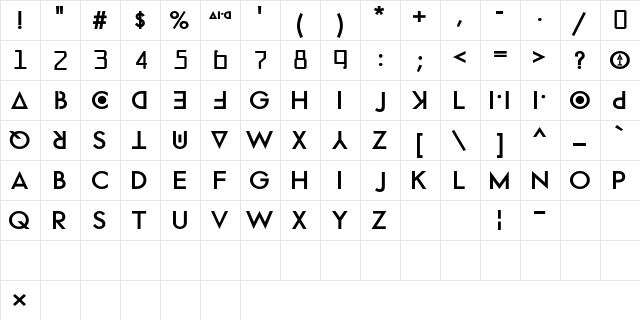
Otomo Regular
Design Context for Otomo Typeface
Otomo is a composed and adaptable typeface that performs quietly and consistently across a wide range of design contexts.